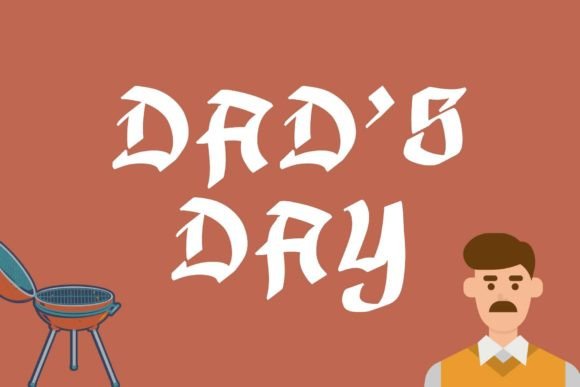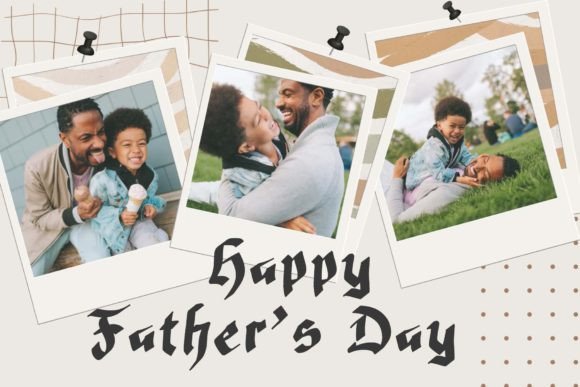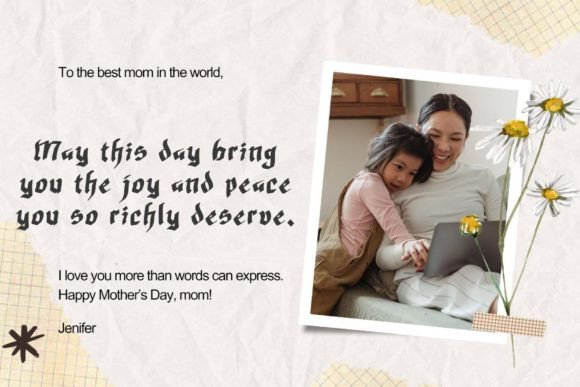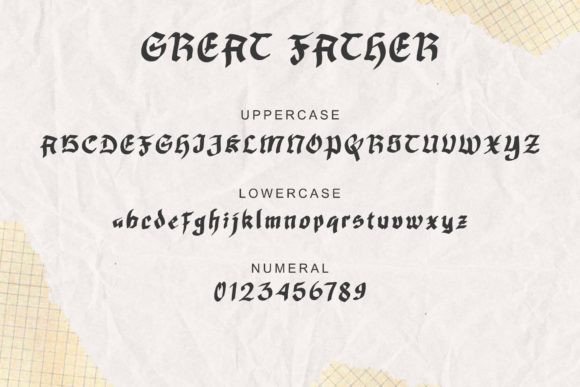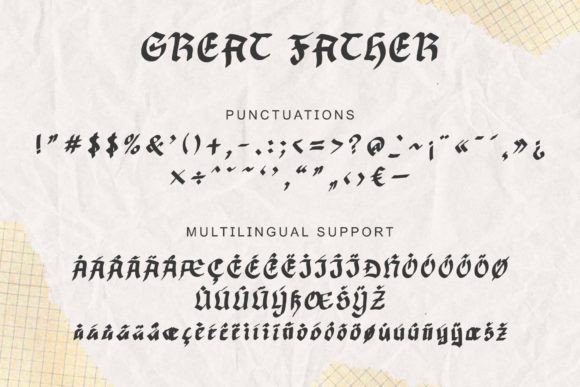
The Great Father Font: A Cool Handwritten Blackletter-Style Font to Elevate Your Designs
I’ll never forget the time I was working on a project for a client who wanted a bold, edgy font to give their branding a Gothic twist. I scoured the internet for hours, trying out font after font, but nothing seemed quite right. That was until I stumbled upon the Great Father font. **This cool handwritten blackletter-style font has since become a staple in my design toolkit**, and I’m excited to share it with you today! 😊
An Honest Review of Great Father Font
- ✨ Unique and eye-catching design: Great Father font boasts a distinctive, handwritten blackletter style that’s sure to turn heads.
- ✅ Highly versatile: Whether you’re working on a logo, poster, or social media graphic, this font adapts seamlessly to different contexts.
- 💯 Easy to read: Despite its bold, ornate design, Great Father font remains surprisingly legible, even at smaller sizes.
Of course, no font is perfect, and Great Father has a few minor quirks to be aware of:
- 🤔 Limited use of OpenType features: While Great Father font does offer some basic OpenType features, it’s not as extensive as some other fonts on the market.
- ⚠️ May not be suitable for body text: Due to its bold, ornate design, Great Father font is best used for headings and titles rather than longer blocks of text.
The Story Behind Great Father Font
While the origins of Great Father font are shrouded in mystery, it’s said to have been inspired by traditional Gothic calligraphy. **The font’s creator aimed to capture the essence of handwritten blackletter fonts**, while infusing them with a modern, edgy twist.
| Is Great Father font suitable for body text? | While Great Father font is beautiful and eye-catching, it’s best used for headings and titles rather than longer blocks of text. |